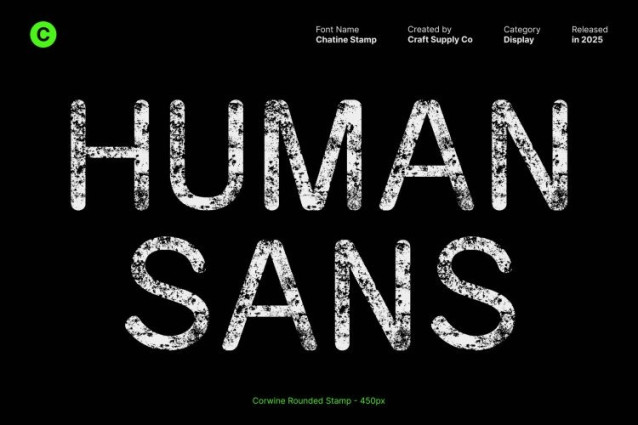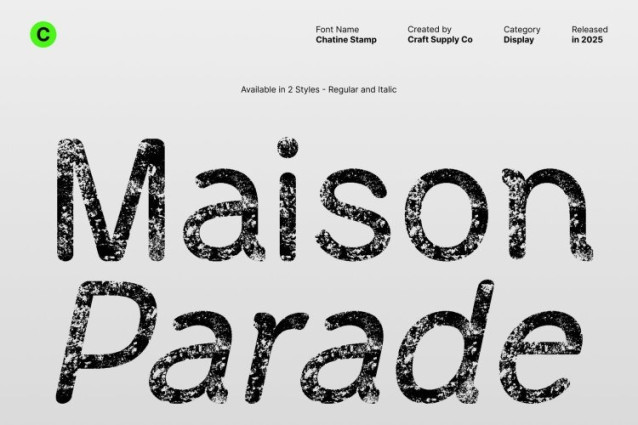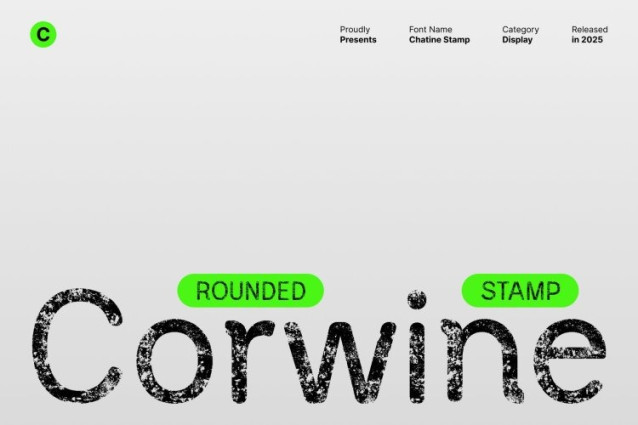
Corwine Rounded Stamp Font
Corwine Rounded Stamp Font This is a modern sans serif font designed to communicate strength, clarity, and professionalism. Its clean geometric shapes and rounded corners create a balanced, approachable appearance, making it ideal for projects that require a contemporary yet confident typographic voice.
Rounded Geometry for Friendly Precision
The font’s rounded forms and precise structure provide visual stability while adding subtle warmth and friendliness. This combination of geometric rigor and approachable curves ensures that maintains readability and impact across both digital and print formats, making it suitable for headlines, branding, and editorial layouts.
Stamped Texture for Vintage Appeal
Enhanced with a stamp effect, this font gains vintage character and tactile depth. The textured finish introduces handcrafted charm and subtle irregularities, giving the modern typeface a nostalgic, expressive feel. This adds a unique personality to each letter, bridging contemporary design with retro aesthetics.
Ideal for Headlines, Branding, and Editorial Projects
This font excels in branding, editorial headers, posters, packaging, and creative display work. Its confident sans serif structure ensures clarity and authority, while the stamped texture adds warmth, character, and a touch of vintage appeal. The result is a versatile, visually compelling font that stands out across a wide range of design applications.